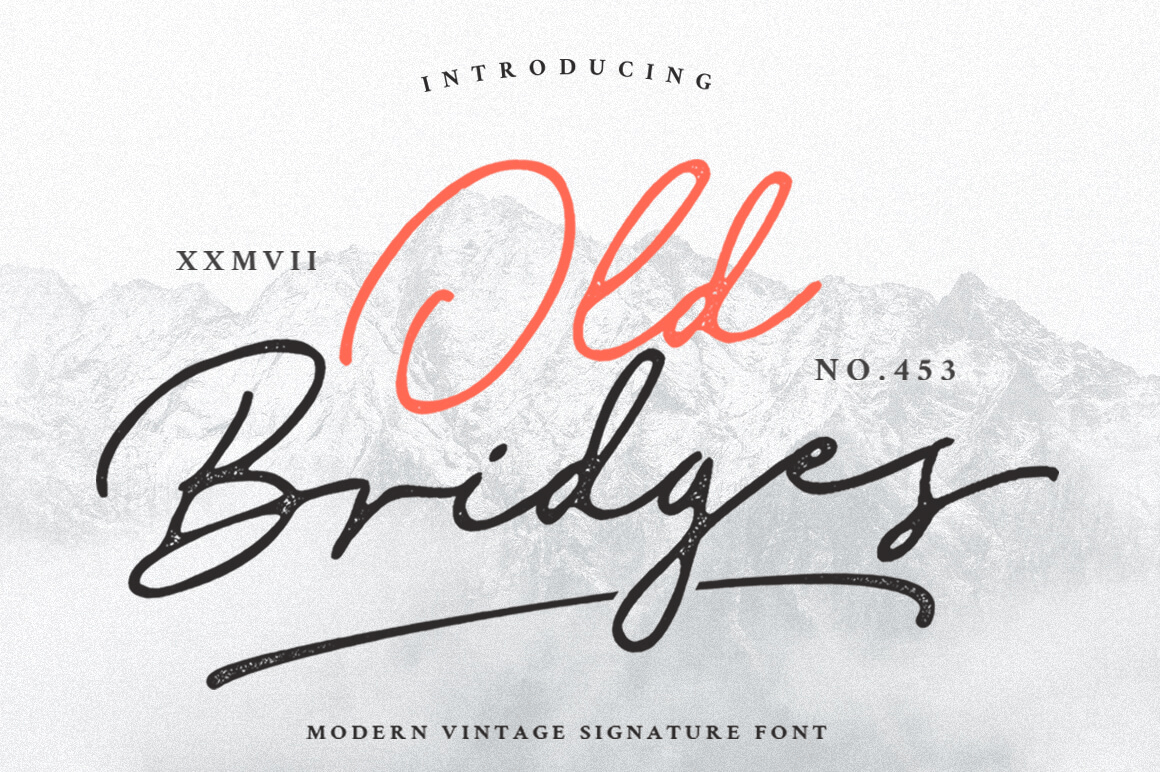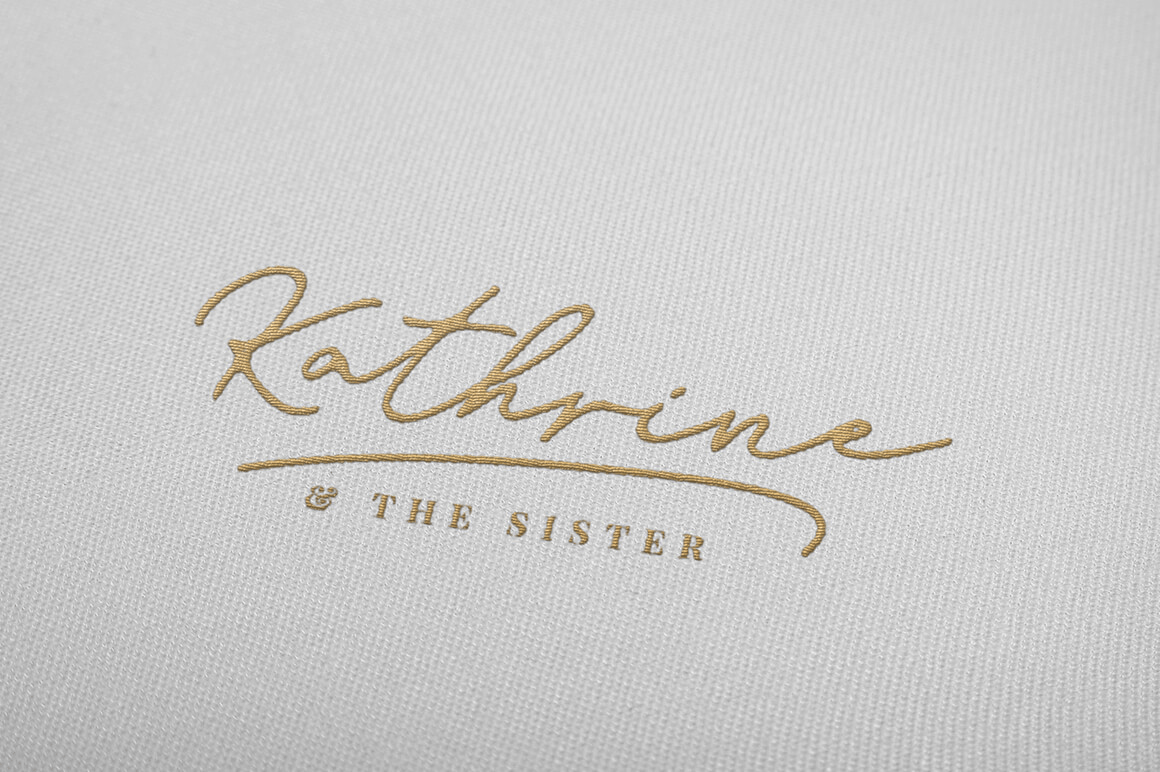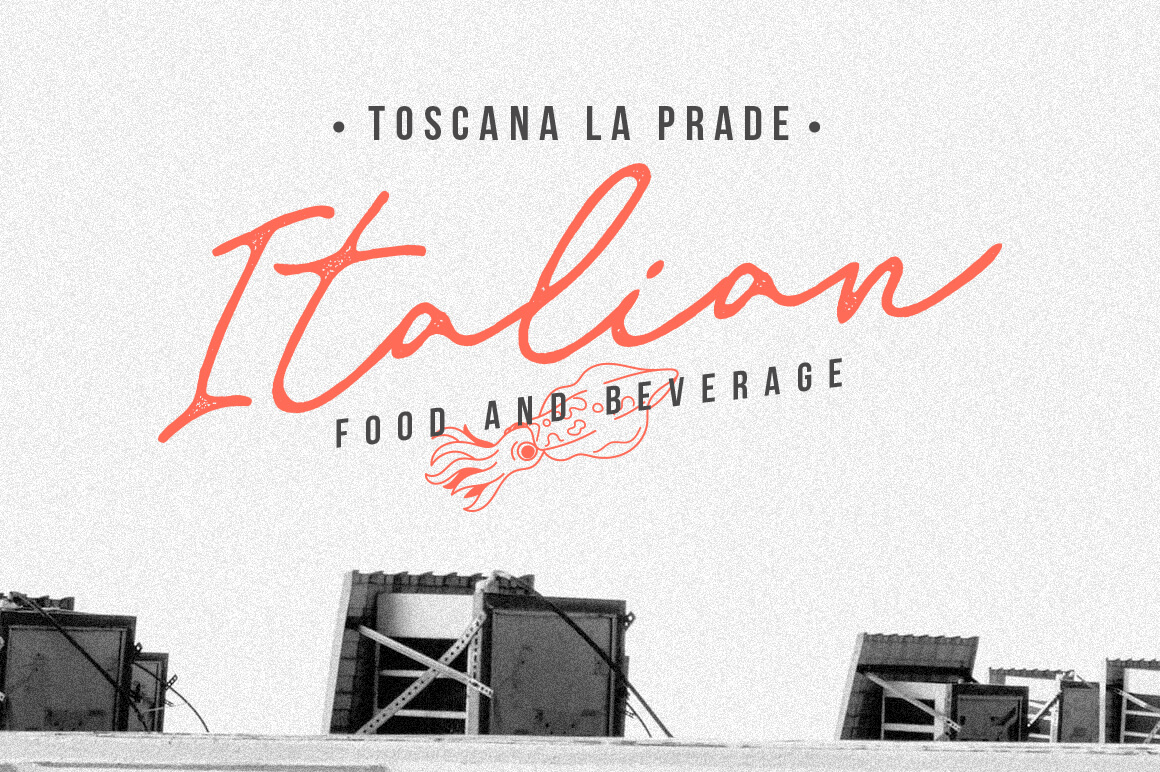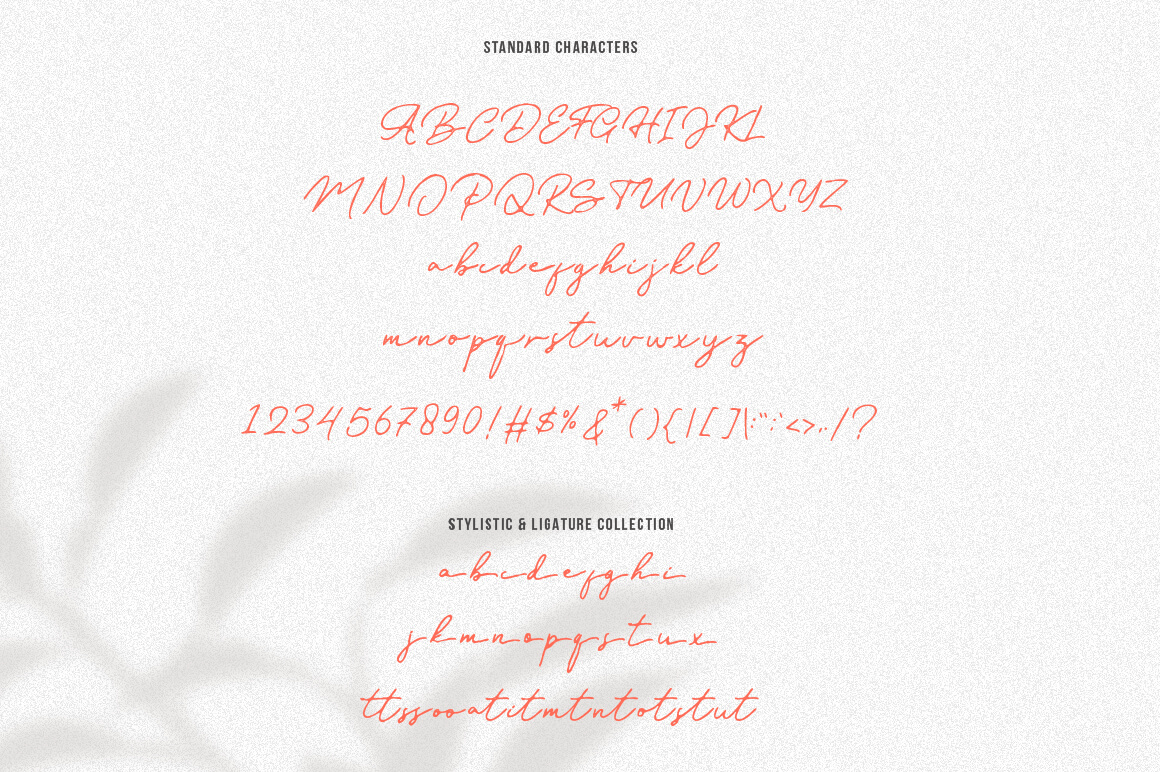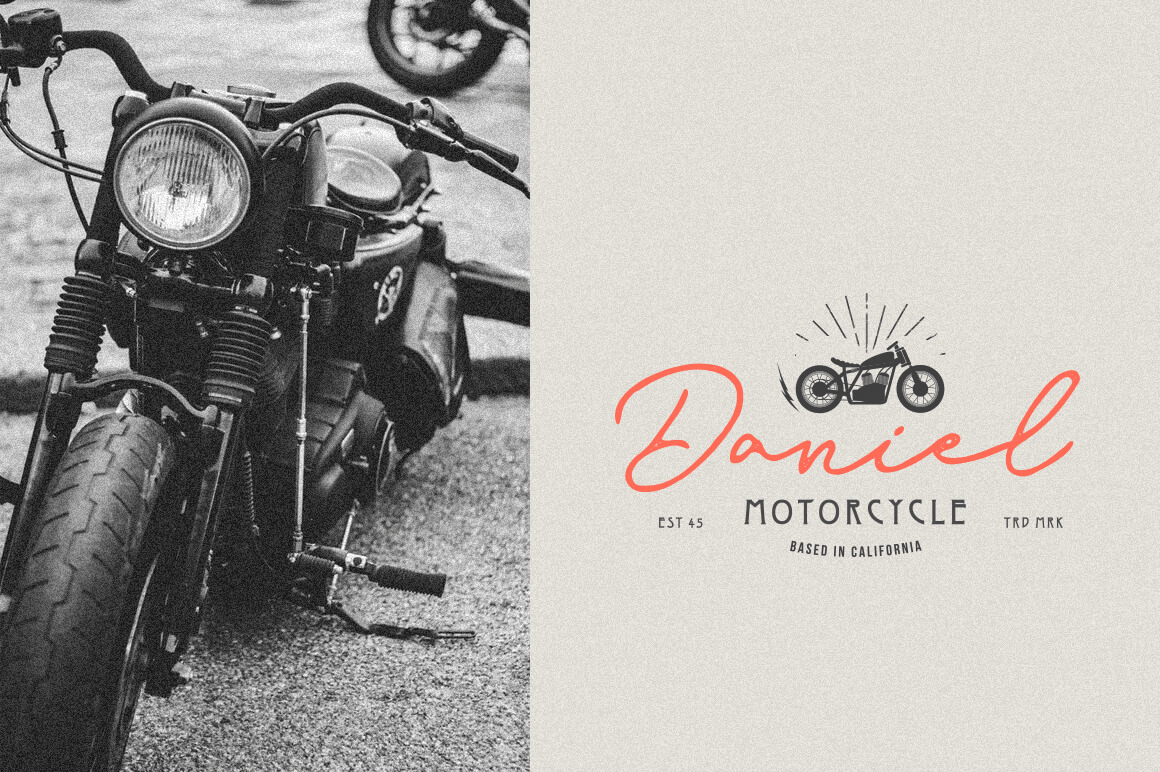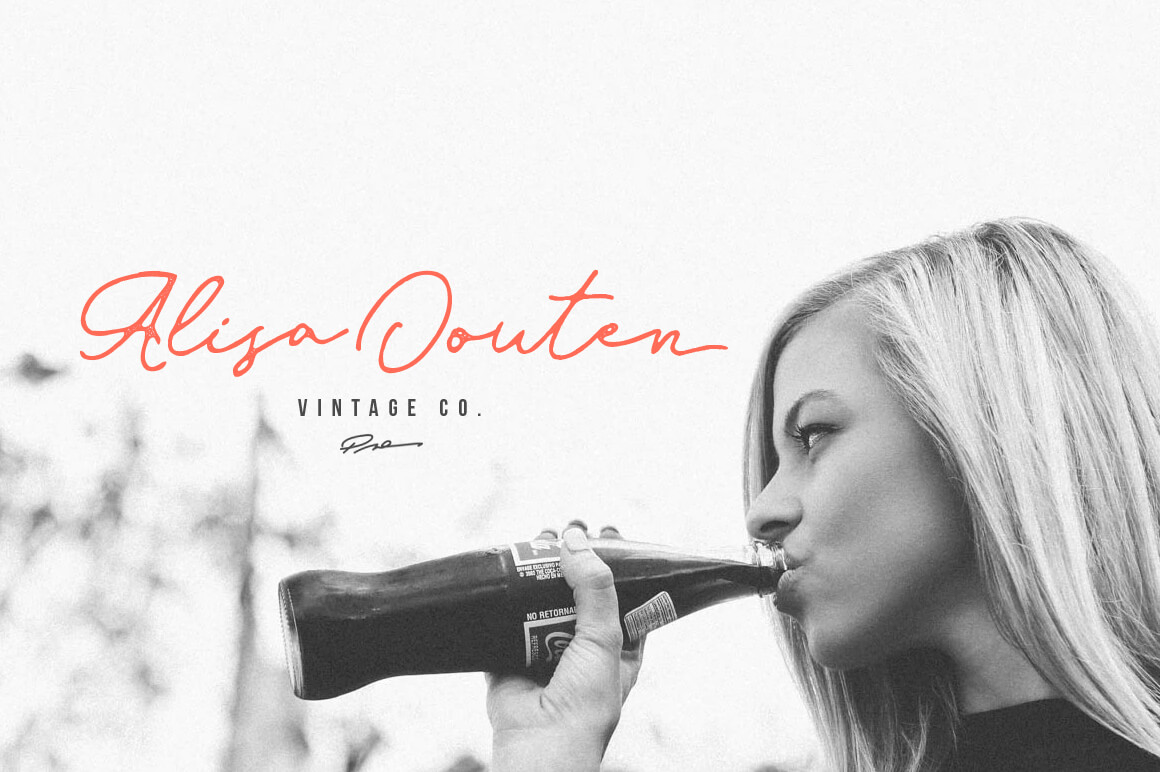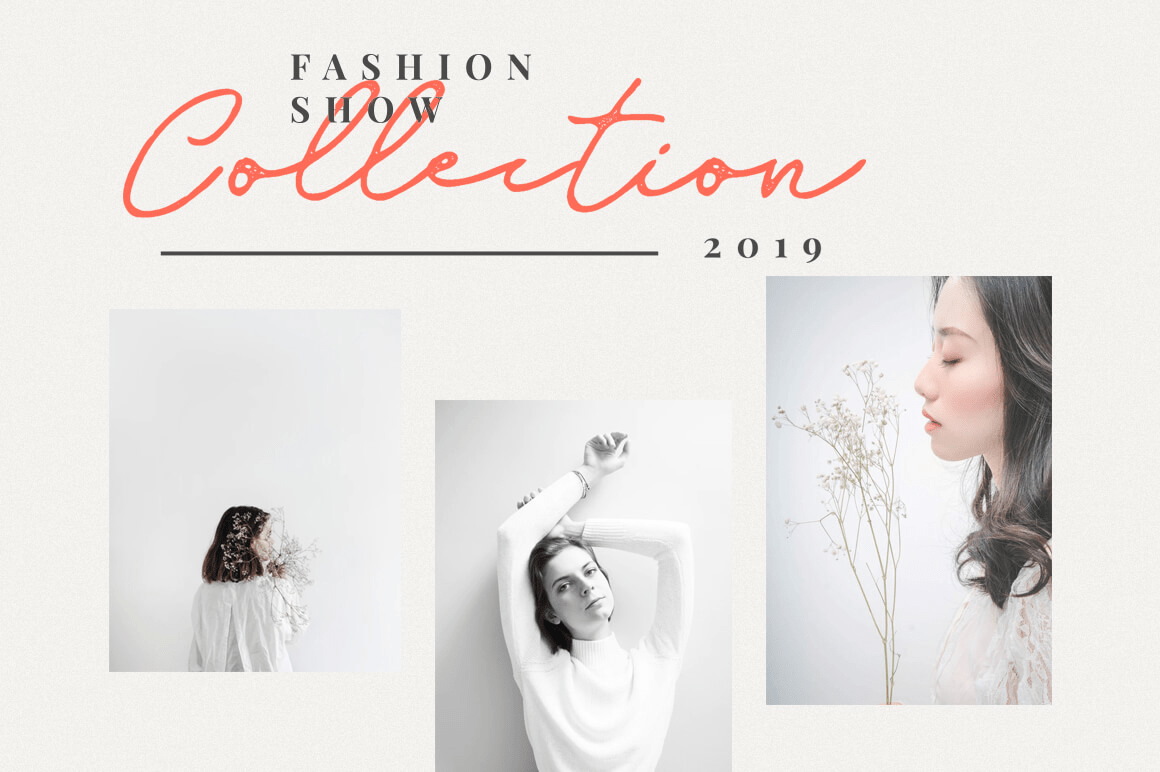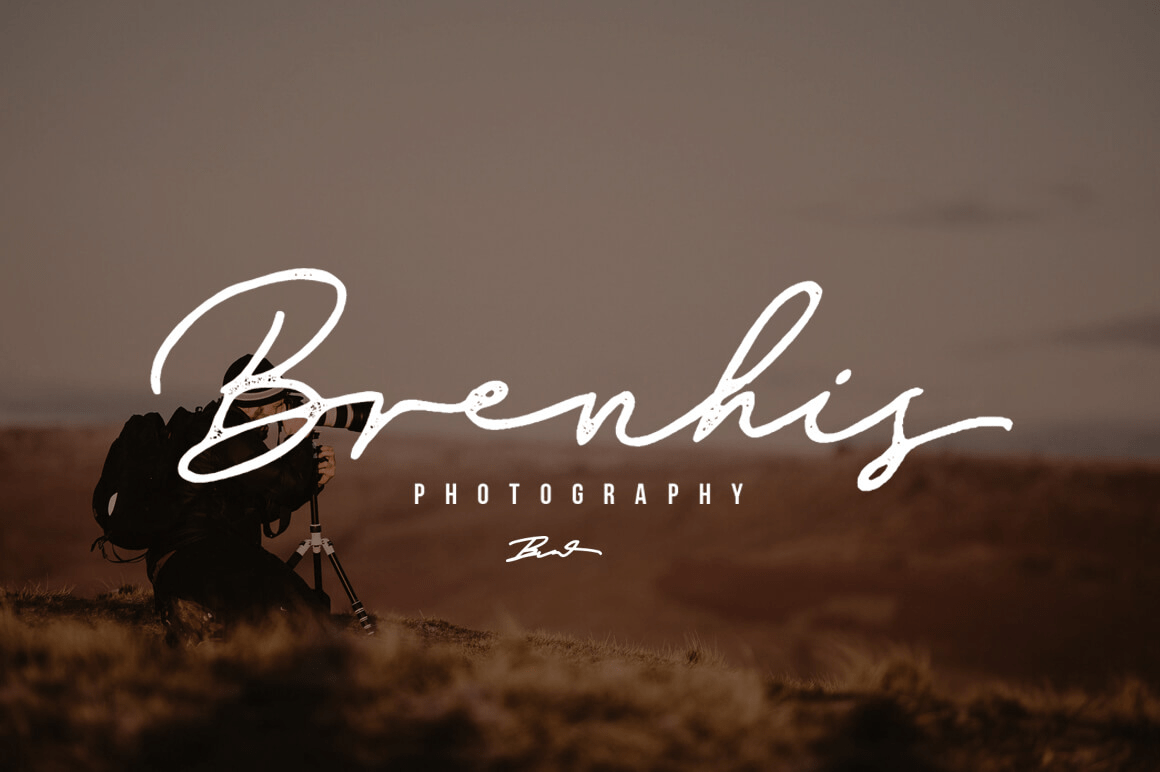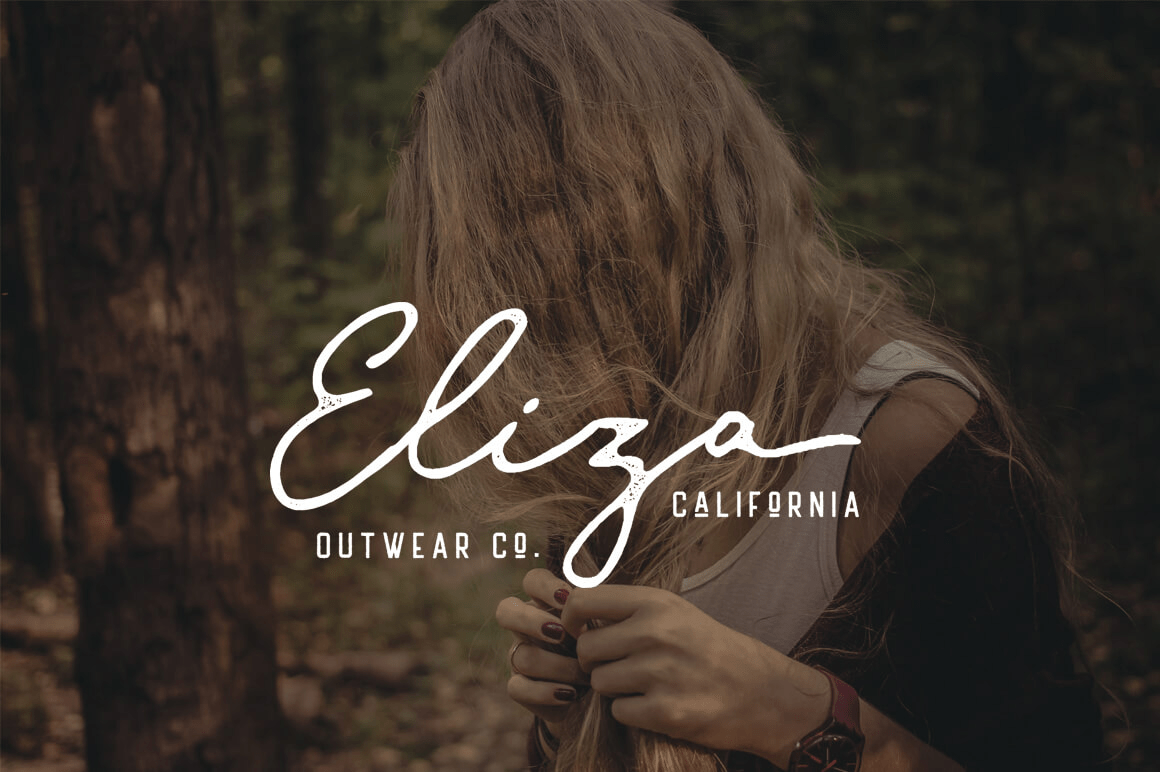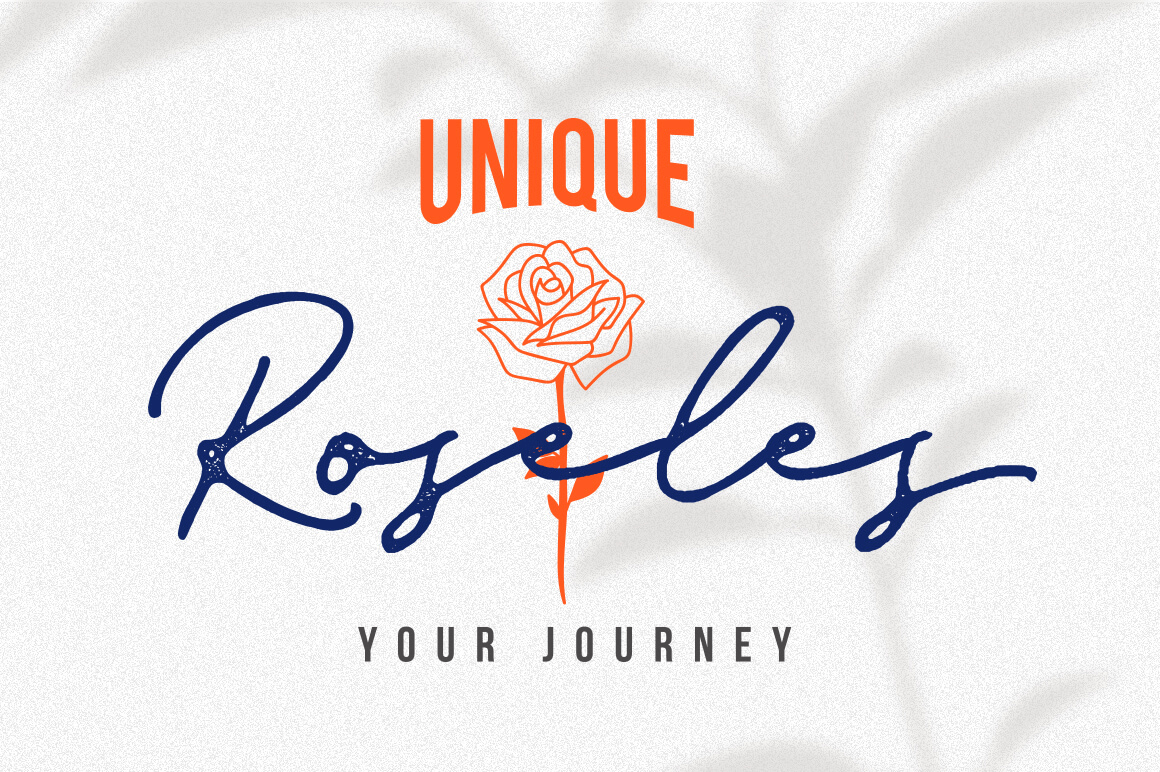
Old Bridges
Font Family by Vultype Co
Old Bridges Script allowing you to create hand lettering is an instant and a super handy set of bonus Swash. Ideal for logos, handwritten quotes, product packaging, header, poster, merchandise, social media & greeting cards.
Features:
• Basic Latin A-Z and a-z
• Numbers
• Symbols
• Stylistic Set
• Ligature